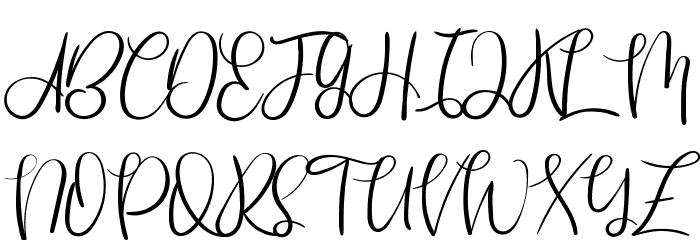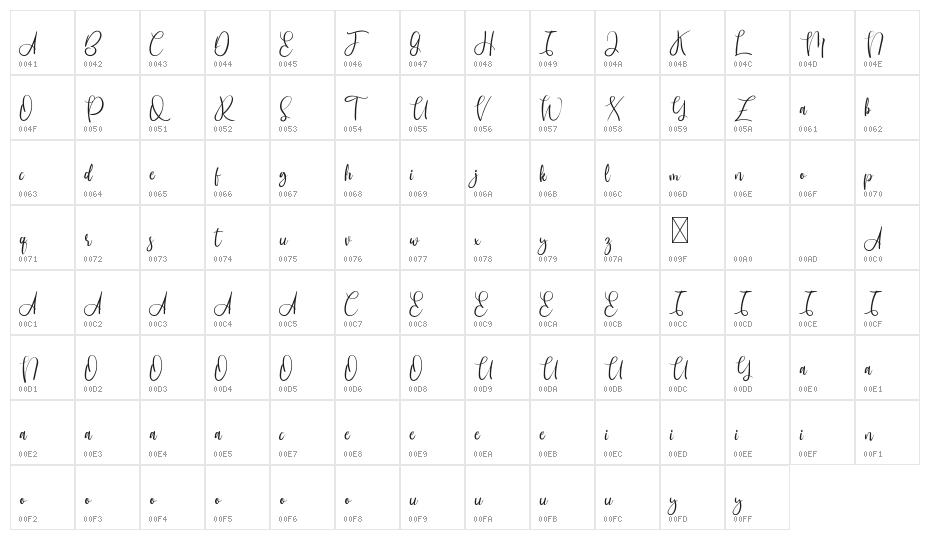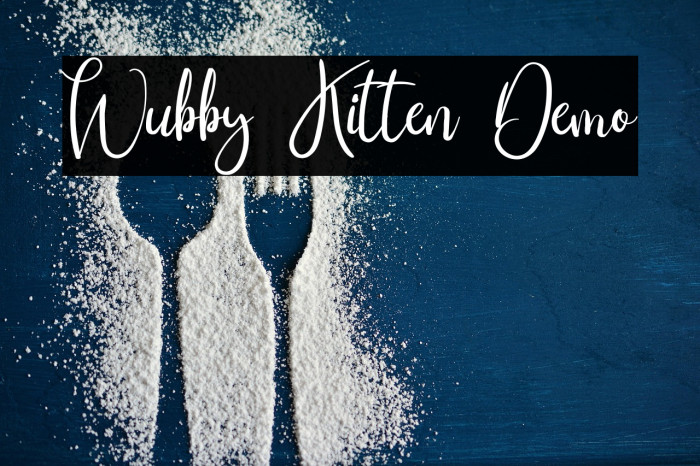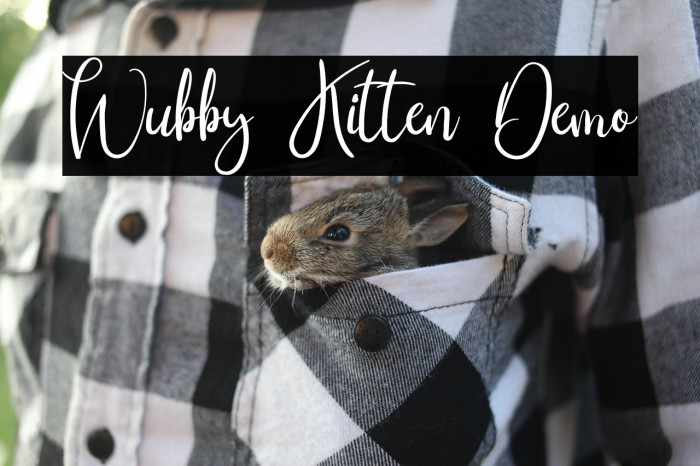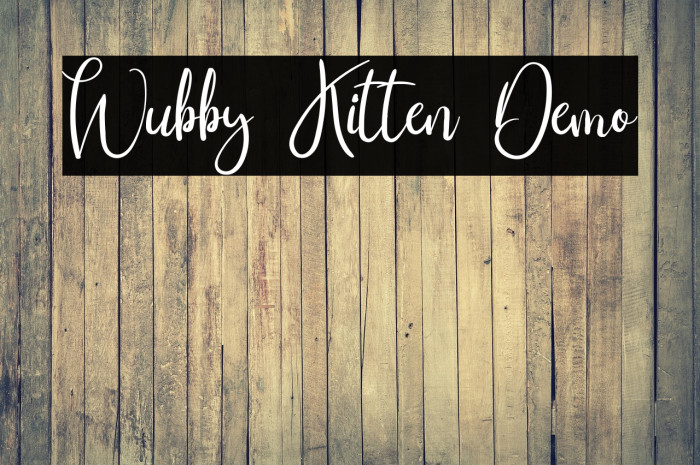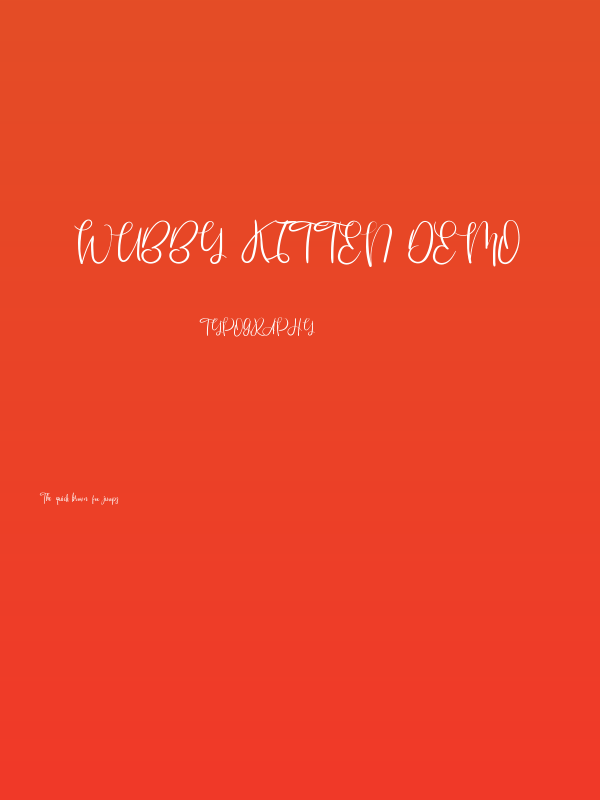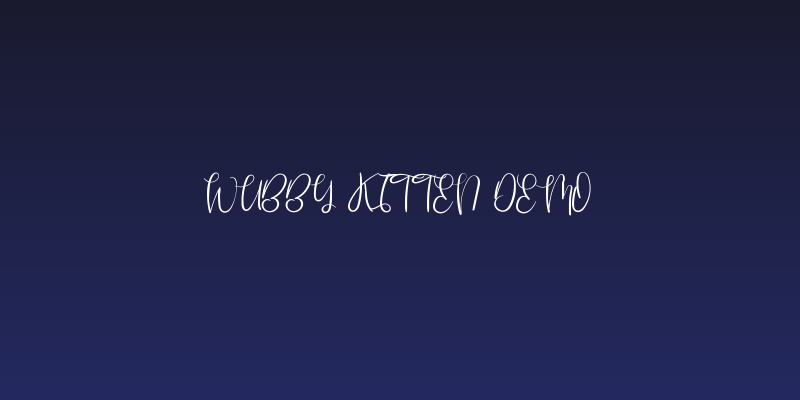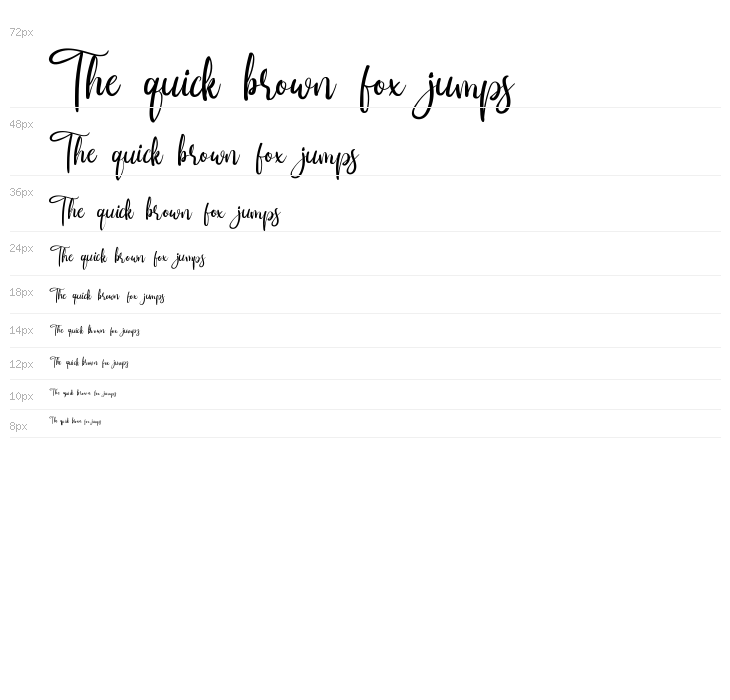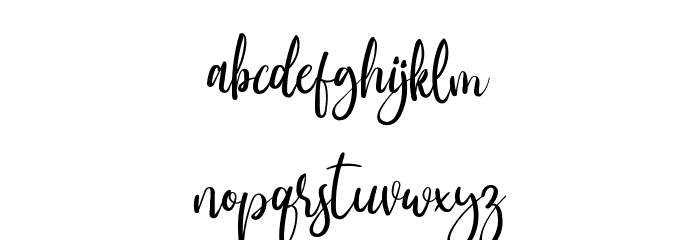
Wubby Kitten Demo Font
Wubby Kitten Demo Description
This font features an elegant and flowing script style, characterized by its graceful curves and loops. The uppercase letters are particularly ornate, with elaborate swirls that give a sense of movement and fluidity. The lowercase letters maintain a consistent style, offering a harmonious blend with the uppercase. The overall appearance is sophisticated and artistic, making it suitable for creative and decorative applications. The font's design is reminiscent of calligraphy, with a modern twist that adds a touch of whimsy. It is perfect for projects that require a personal and artistic touch, such as invitations, greeting cards, and branding materials.